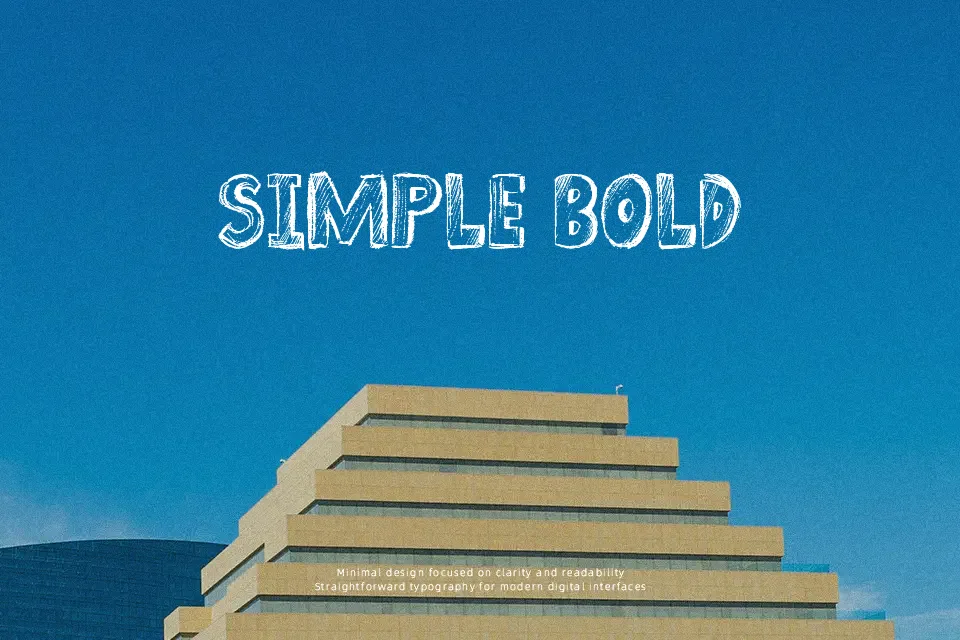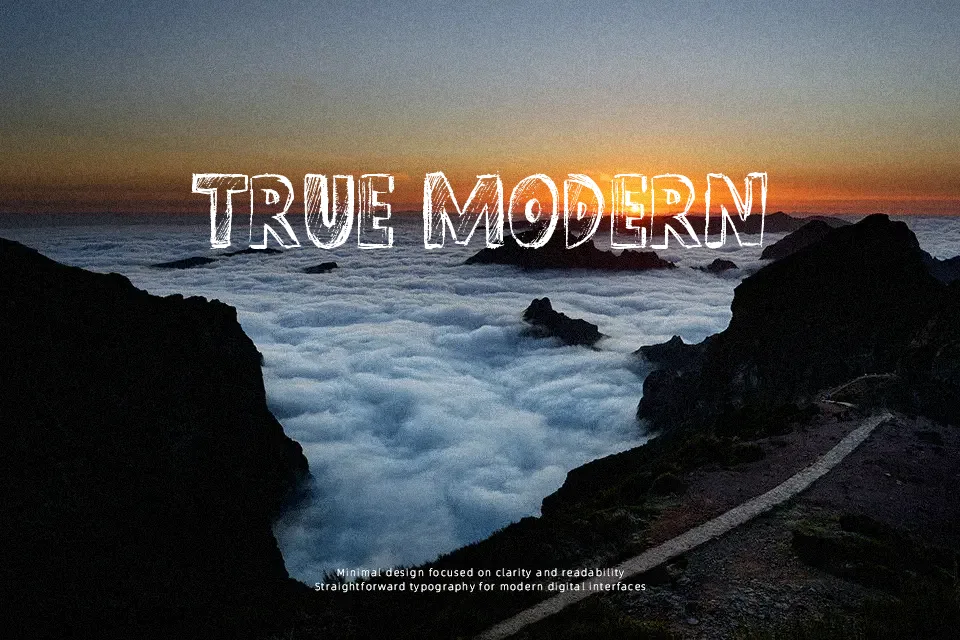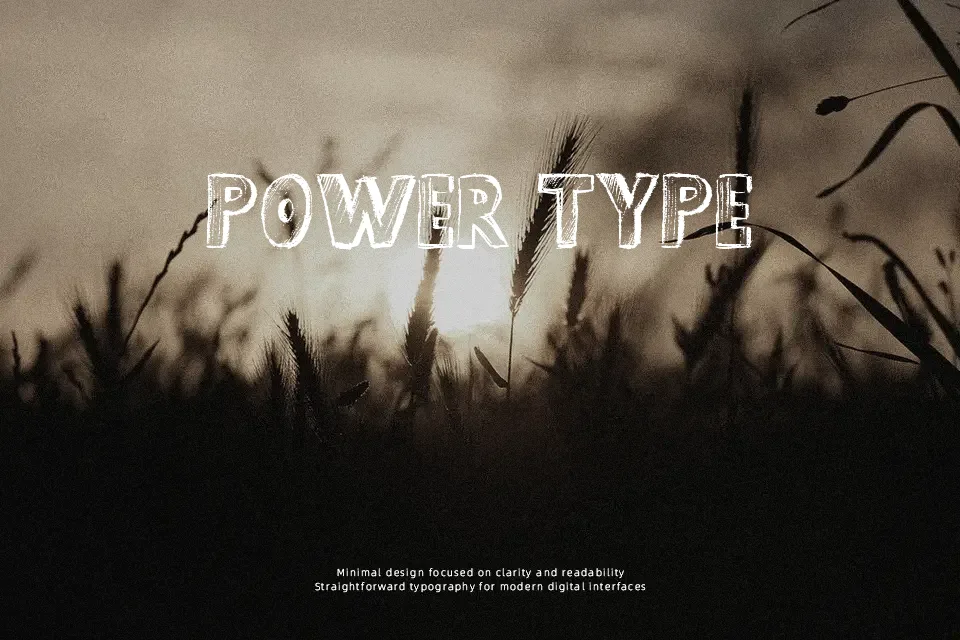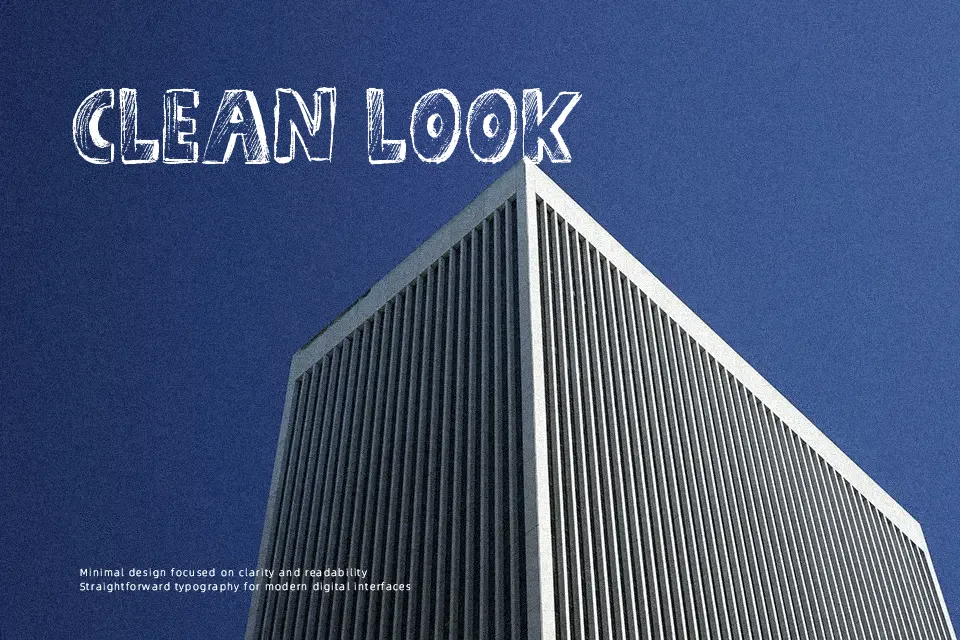
Sketch Book Font
Designed by JSH creates
Defined by layered hatch marks and raw hand-drawn outlines, Sketch Book Font creates an authentic pencil illustration aesthetic across display compositions. The letterforms feature consistent cap-height proportions and balanced spacing that prevent complex internal strokes from colliding in large layouts. Heavy outer contours maintain letter recognition against varied backgrounds, though the dense internal texture significantly degrades clarity at small sizes. The design performs exceptionally well for bold headline treatments, artistic apparel prints, and thematic packaging. However, the textured forms lack the simplicity required for continuous paragraphs, making the typeface impractical for small user interfaces or dense body copy.
Best For: illustrated book covers, music festival posters, apparel graphics, artisan packaging
Not Ideal For: long body text, mobile UI typography, dense spreadsheets, technical documents